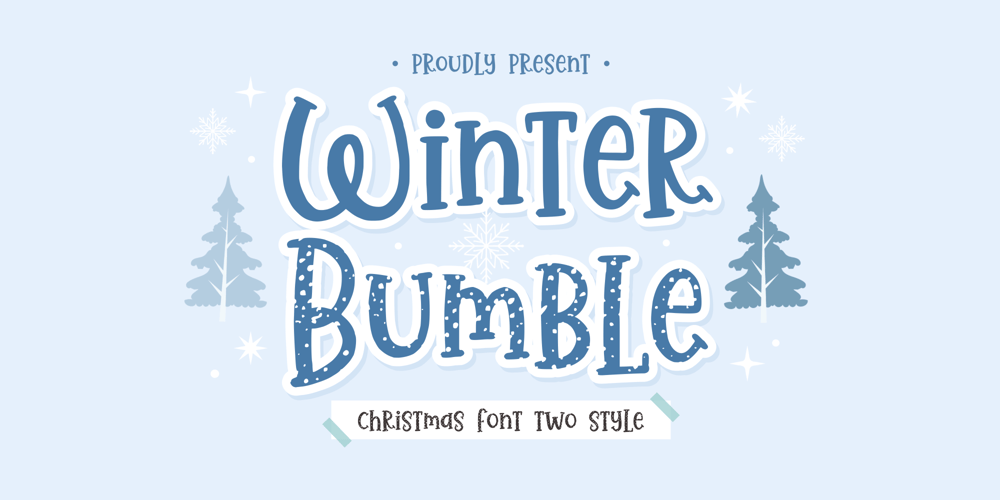
Winter Bumble Font Family was designed by Fachrizal Yusuf and published by Allouse Studio. Winter Bumble contains 2 styles and family package options. Proudly Presenting, Winter Bumble A Christmas Font Two StyleWinter Bumble is perfect for any titles, logo, product packaging, branding project, megazine, social media, wedding, or just used to express words above the background.Winter Bumble also come with Multi-Lingual Support.Enjoy the font, feel free to comment or feedback, send me PM or email. Thank You!